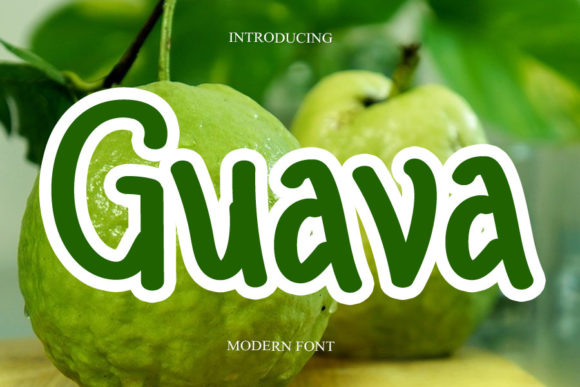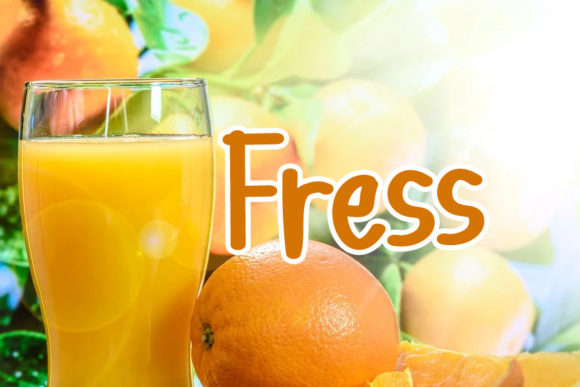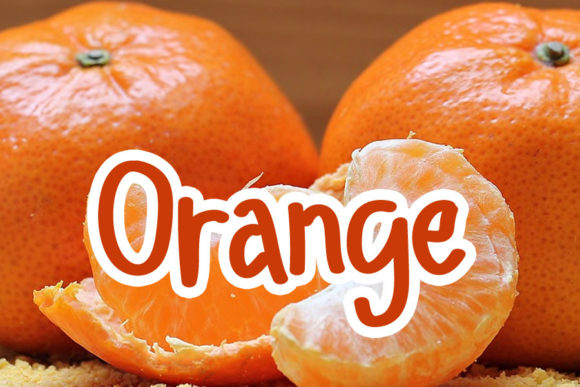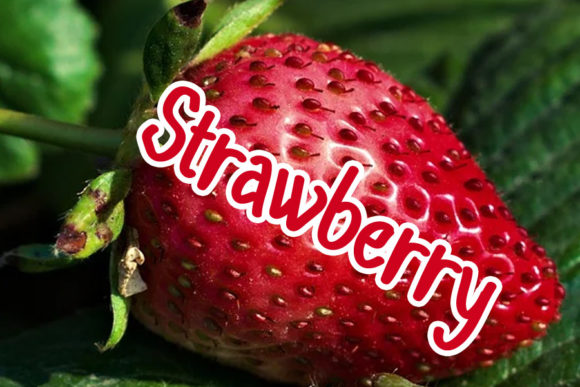
Guava Font
About Guava Font
Guava is a fresh and beautiful handwritten font, good for various design purposes that require a casual touch. It is suitable for book texts, documentation, business reports, business correspondence, magazines, newspapers, posters, advertisements, multimedia, and corporate design.